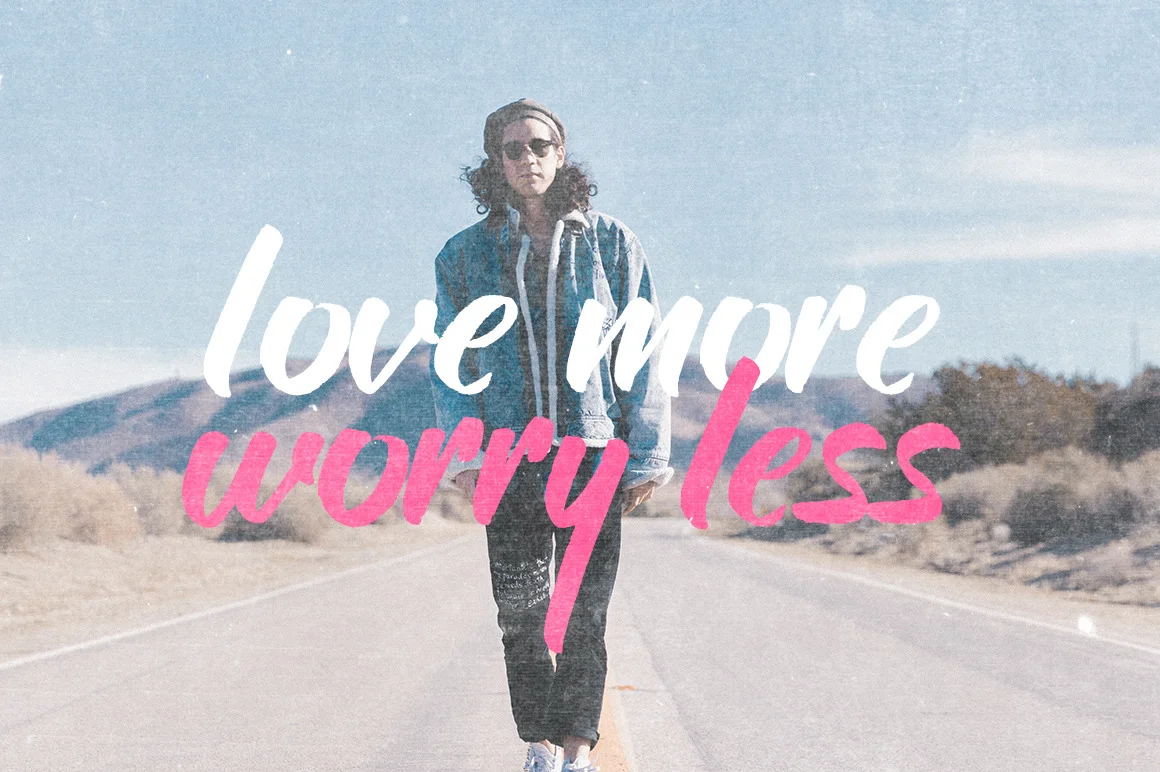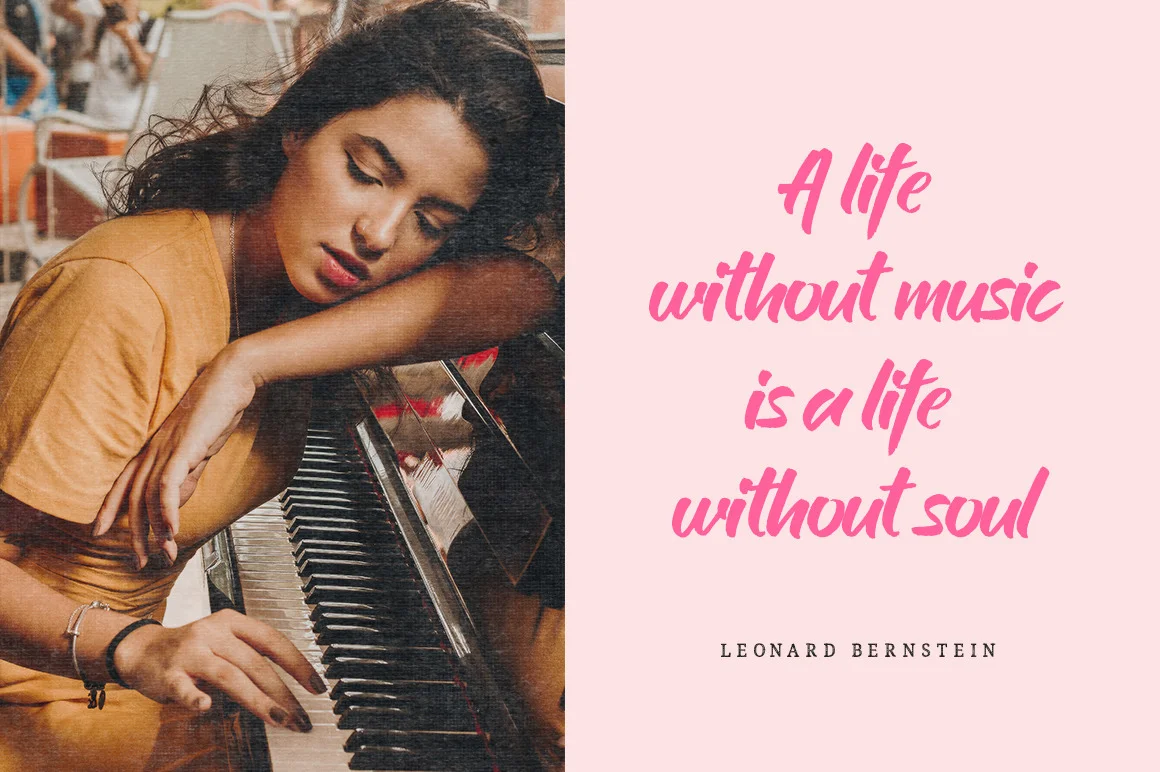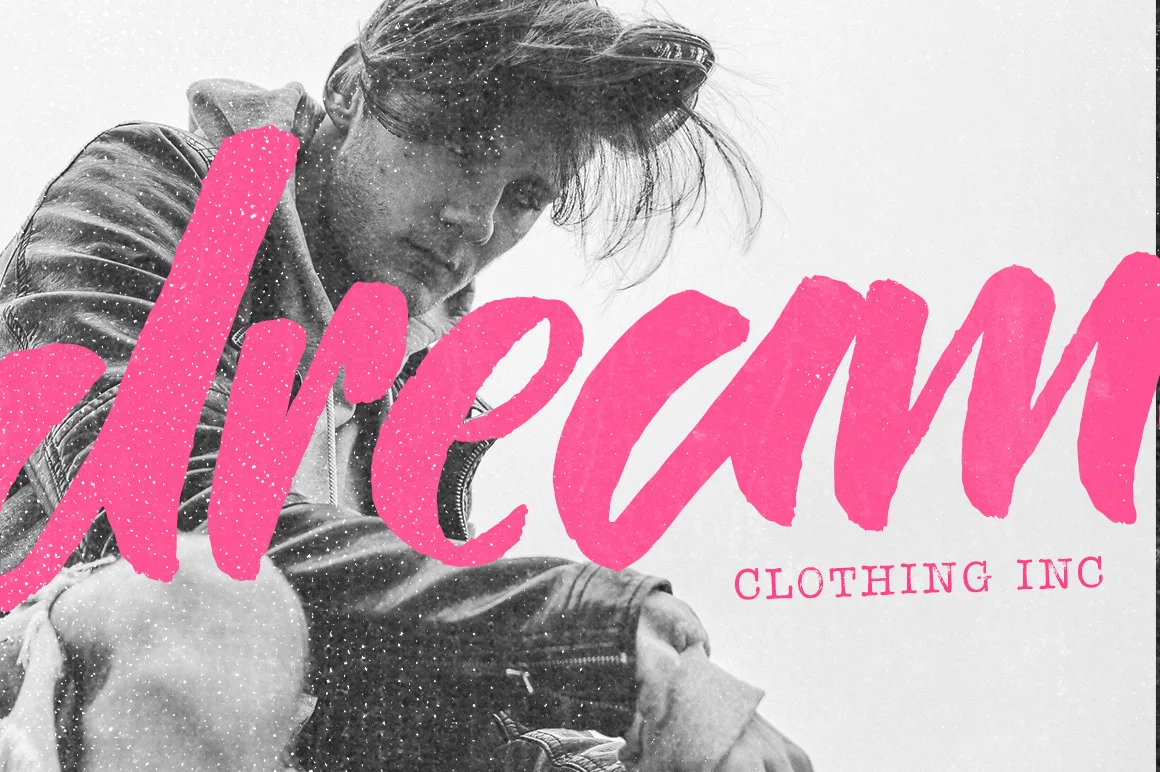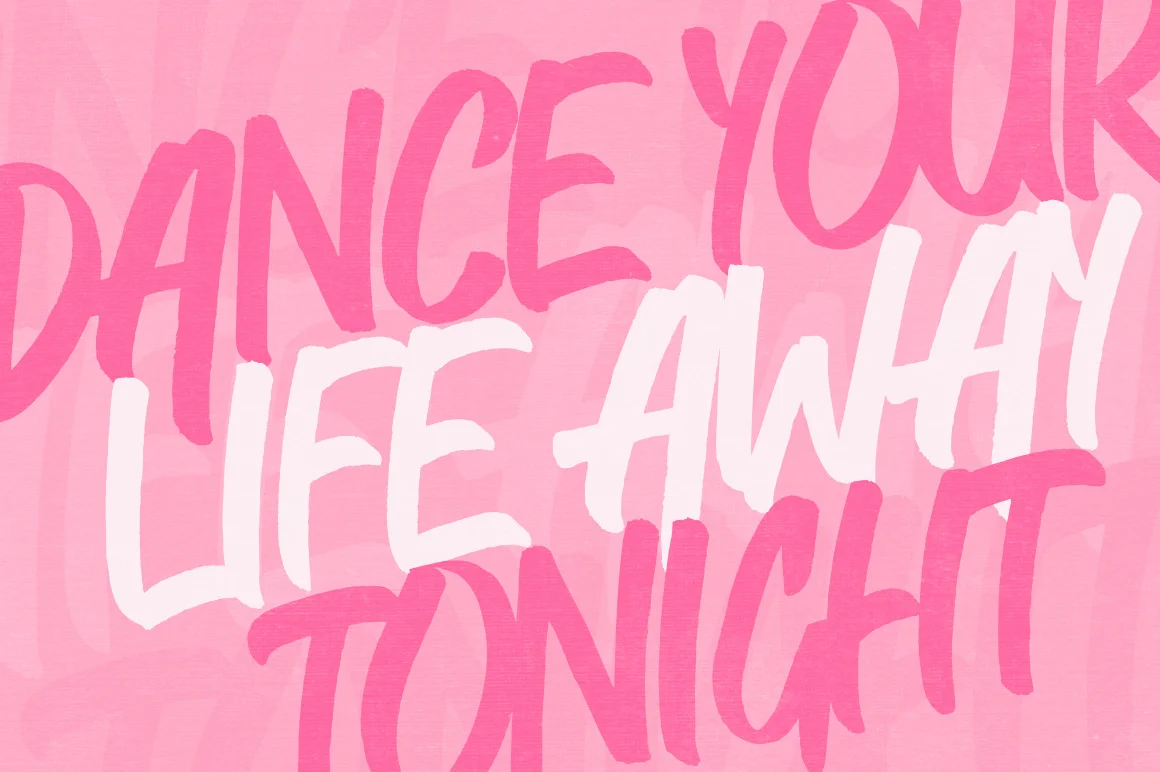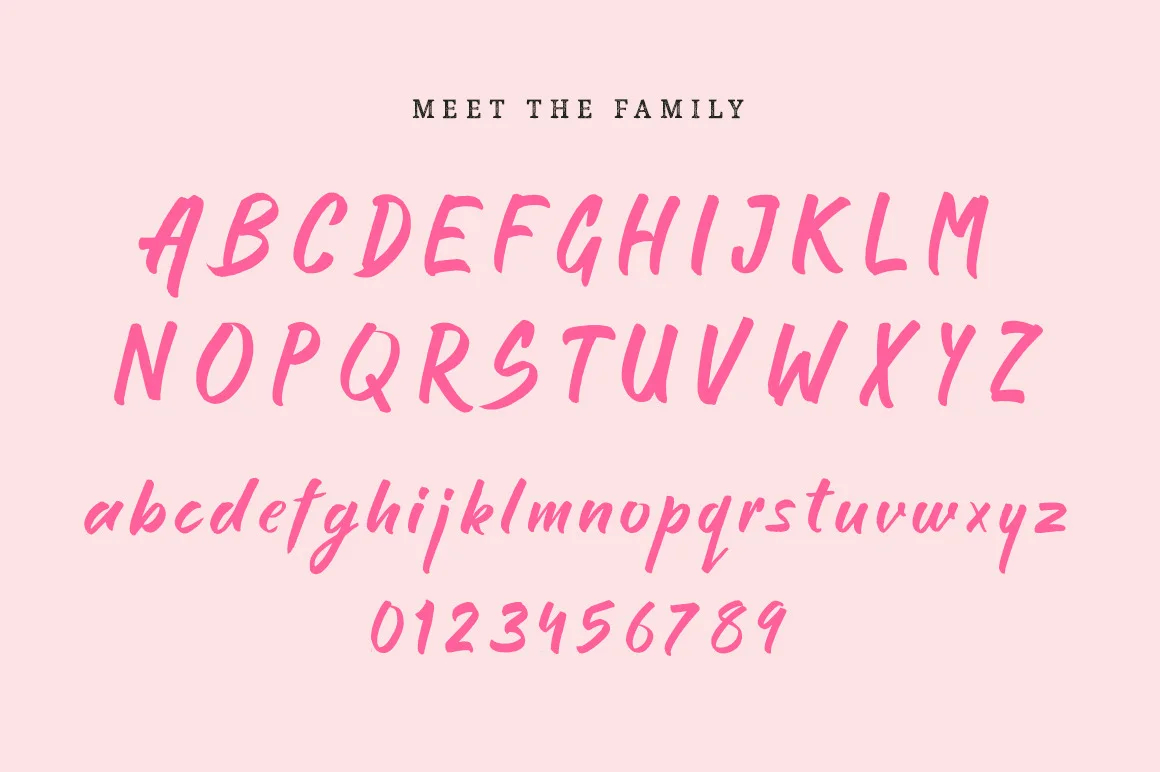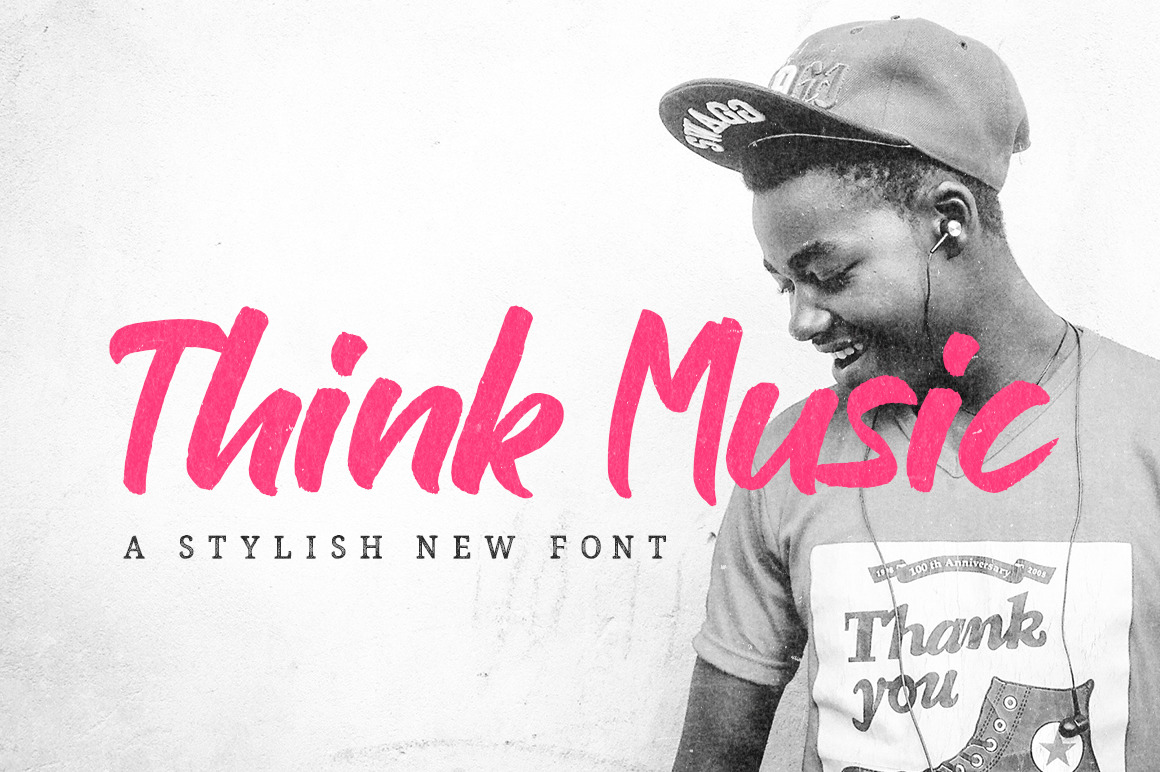
Think Music Script Font
There is a particular satisfaction in finding a typeface that delivers optical balance across all weights without compromise. Think Music Script consistently provides it. The typeface brings an elegant, calligraphic sensibility to a broad range of creative disciplines, with visual harmony and precise spacing that holds up whether the work is print-first or screen-first.
In practice, Think Music Script proves particularly effective for event signage, high-end cosmetic packaging, bridal materials, environmental graphics, web design. Designers reaching for it find that the type decisions feel resolved rather than laboured — a useful quality when client timelines are tight.
The range of applications extends to greeting cards, annual reports, advertising campaigns, logo design. That breadth is deliberate: the proportions and spacing were stress-tested across a wide range of mock briefs before the typeface was finalised.
The consistent rhythm of Think Music Script across a full paragraph creates the kind of even grey value that makes extended reading comfortable, a detail that matters more in long-form content than its subtlety might suggest.
Independent studios handling packaging and editorial work find Think Music Script a reliable choice for projects that demand both personality and restraint. The design avoids the self-conscious quirkiness that dates quickly, settling instead for considered distinctiveness that holds up over time.